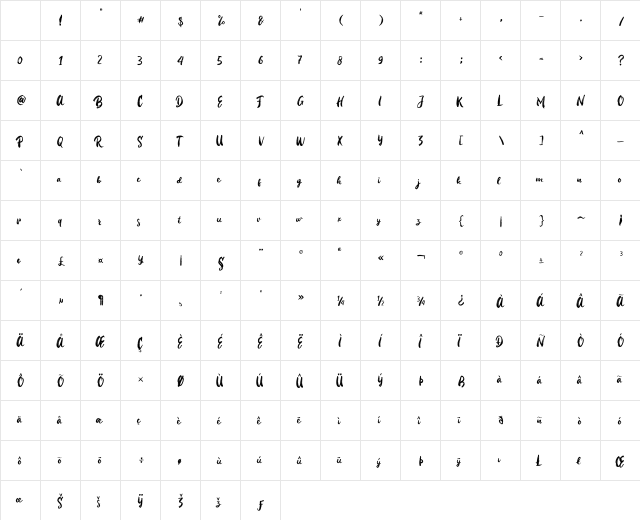
Blue Ocean Brush flows with the natural rhythm of handwritten lettering, making it ideal for designs that call for warmth and personal expression.
Font Pairing: Combine Blue Ocean Brush with a simple geometric sans for maximum contrast - the tension between flowing curves and clean structure is a classic typographic pairing.
Pro Tip: Use Blue Ocean Brush for short runs of text - names, titles, or taglines. Extended body copy in script faces tires the eye quickly.